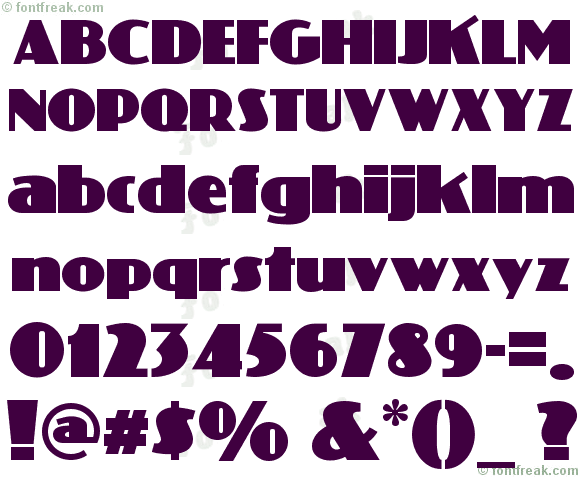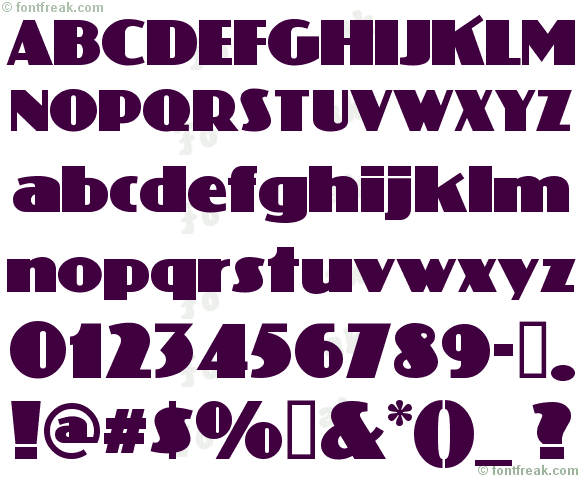
PhattPhreddy
Phatt Phreddy NF
PhattPhreddy is a striking display font designed by Nick Curtis, characterized by its bold and playful aesthetic. This typeface falls into the decorative category, making it an ideal choice for projects that require a distinctive and eye-catching appearance. The font features a thick stroke weight with minimal contrast, providing a solid and robust look. Its wide letter spacing enhances readability while adding a sense of modernity to the overall design. The rounded edges and stylized forms imbue PhattPhreddy with a friendly and approachable vibe, making it perfect for a variety of creative applications.
This versatile font is particularly well-suited for use in wedding invitations, where its unique flair can capture the essence of a joyful occasion. It also shines in movie posters, offering a bold statement that can easily draw attention. Restaurant menus benefit from PhattPhreddy’s lively character, making dishes feel inviting and exciting. Additionally, the font can be effectively used in branding materials for small businesses, helping to establish a memorable identity. Graphic designers and content creators will appreciate its adaptability, as it can bring a fresh perspective to any project.